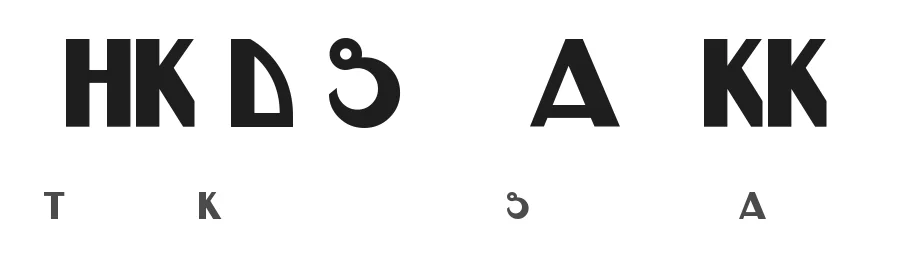
About Gotica Moderna KK Font
Scaled down to standard point sizes, kerning added and some minor glyph corrections.
Bold, condensed and tightly spaced. Ideal for compact headers and titling. Western European accents only.
Gotica Moderna KK Font
by koeiekat